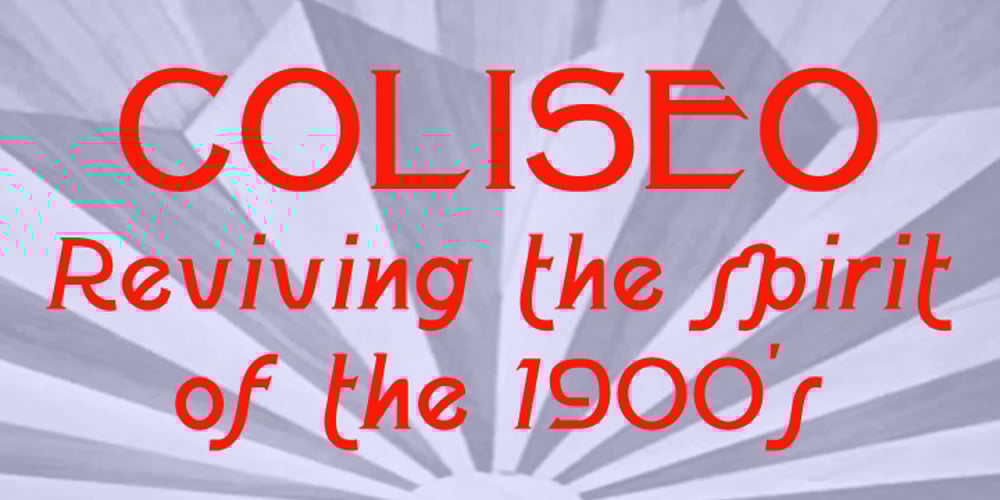
Coliseo Font Family was designed by Paul James Lloyd and published by Greater Albion Typefounders. Coliseo contains 1 styles and family package options. Coliseo is a lively and fun Art Nouveau inspired typeface, inspired by stone lettering seen on facade of the Coliseum Theatre in London. It’s beautifully characterful let legible making it ideal for poster work or anything where it’s useful to combine Roman display faces with a feeling of life and energy.